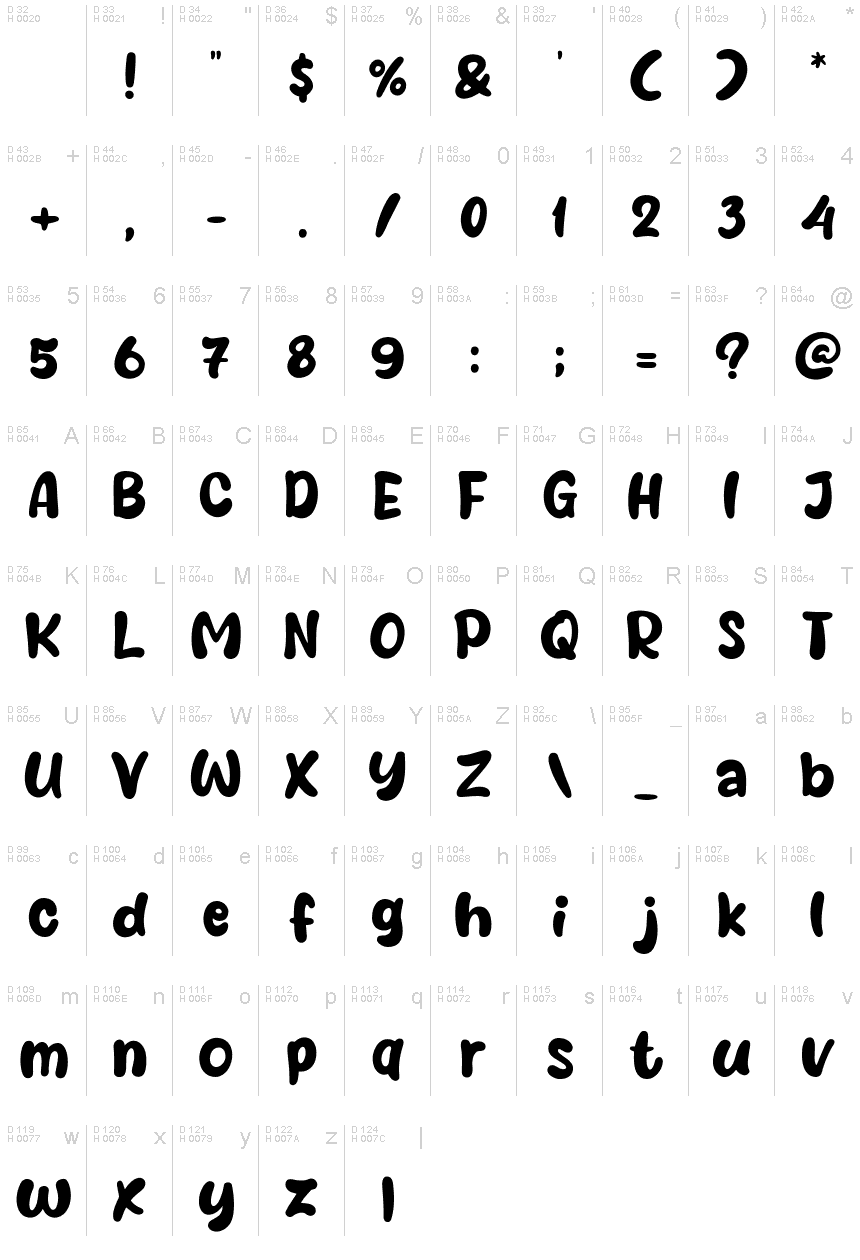
Sweets Smile
Sweets Smile is a bold, cartoon style display font designed by Khurasan and Jalembe. It's perfect for creating fun and playful designs, from children's books to party invitations. Its unique letterforms are sure to capture attention and add a whimsical touch to any project. Use Sweets Smile for posters, logos, and web content that needs an eye-catching twist!